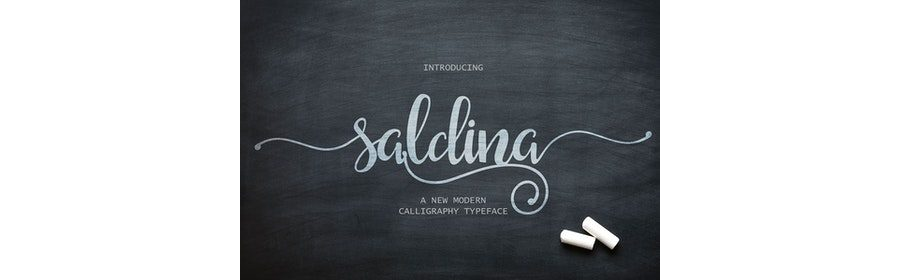
Saldina Font is a free font that combined brush lettering with traditional hand writing. Saldina is multipurpose and flexible, make it easy to match with another typefaces to create some beautiful project such as wedding invitation, vintage design, greeting card, poster, book cover, illustration, etc.
Saldina Free Font
Saldina Font is a free font that combined brush lettering with traditional hand writing. Saldina is multipurpose and flexible, make it easy to match with another typefaces to create some beautiful project such as wedding invitation, vintage design, greeting card, poster, book cover, illustration, etc.